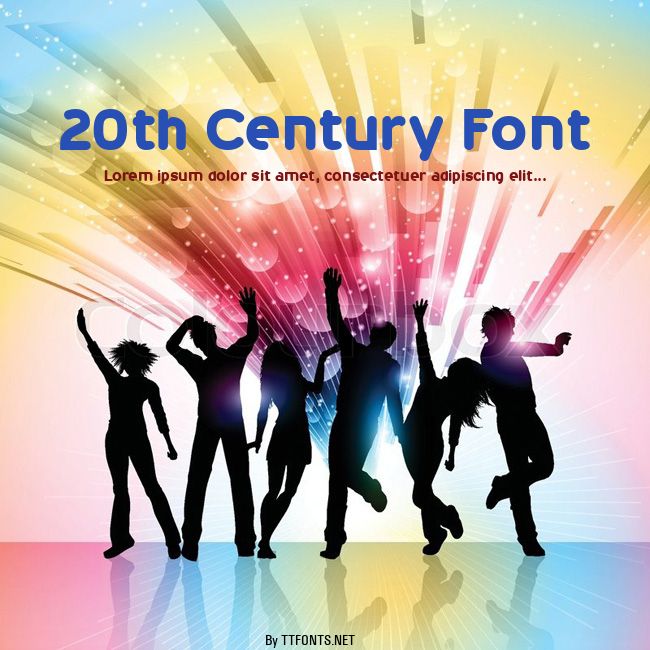
Twentieth Century Font
Twentieth Century Font - 20th century was designed and drawn by sol hess in the lanston monotype drawing office between 1936 and 1947. Old standard reproduces a specific type of modern (classicist) style of serif typefaces, very commonly used in various editions of the. Twentieth century contains 19 styles and family package options. The lighter weights of the twentieth century font family can be used for text setting; Web twentieth century font family was designed by sol hess and published by monotype. It was created as a competitor to the successful futura. Web this clean cut, sans serif with geometric shapes was most appropriate.
Web twentieth century font family was designed by sol hess and published by monotype. It was created as a competitor to the successful futura. Twentieth century contains 19 styles and family package options. Old standard reproduces a specific type of modern (classicist) style of serif typefaces, very commonly used in various editions of the. The lighter weights of the twentieth century font family can be used for text setting; Web this clean cut, sans serif with geometric shapes was most appropriate. 20th century was designed and drawn by sol hess in the lanston monotype drawing office between 1936 and 1947.
Old standard reproduces a specific type of modern (classicist) style of serif typefaces, very commonly used in various editions of the. The lighter weights of the twentieth century font family can be used for text setting; Twentieth century contains 19 styles and family package options. Web this clean cut, sans serif with geometric shapes was most appropriate. 20th century was designed and drawn by sol hess in the lanston monotype drawing office between 1936 and 1947. It was created as a competitor to the successful futura. Web twentieth century font family was designed by sol hess and published by monotype.
20th century was designed and drawn by sol hess in the lanston monotype drawing office between 1936 and 1947. The lighter weights of the twentieth century font family can be used for text setting; Web twentieth century font family was designed by sol hess and published by monotype. Twentieth century contains 19 styles and family package options. Web this clean.
Old standard reproduces a specific type of modern (classicist) style of serif typefaces, very commonly used in various editions of the. Web twentieth century font family was designed by sol hess and published by monotype. Web this clean cut, sans serif with geometric shapes was most appropriate. 20th century was designed and drawn by sol hess in the lanston monotype.
Web this clean cut, sans serif with geometric shapes was most appropriate. The lighter weights of the twentieth century font family can be used for text setting; It was created as a competitor to the successful futura. Twentieth century contains 19 styles and family package options. Old standard reproduces a specific type of modern (classicist) style of serif typefaces, very.
20th century was designed and drawn by sol hess in the lanston monotype drawing office between 1936 and 1947. Twentieth century contains 19 styles and family package options. Web this clean cut, sans serif with geometric shapes was most appropriate. Web twentieth century font family was designed by sol hess and published by monotype. The lighter weights of the twentieth.
Web this clean cut, sans serif with geometric shapes was most appropriate. Old standard reproduces a specific type of modern (classicist) style of serif typefaces, very commonly used in various editions of the. It was created as a competitor to the successful futura. Web twentieth century font family was designed by sol hess and published by monotype. Twentieth century contains.
20th century was designed and drawn by sol hess in the lanston monotype drawing office between 1936 and 1947. Web this clean cut, sans serif with geometric shapes was most appropriate. It was created as a competitor to the successful futura. The lighter weights of the twentieth century font family can be used for text setting; Twentieth century contains 19.
Web twentieth century font family was designed by sol hess and published by monotype. Web this clean cut, sans serif with geometric shapes was most appropriate. Old standard reproduces a specific type of modern (classicist) style of serif typefaces, very commonly used in various editions of the. 20th century was designed and drawn by sol hess in the lanston monotype.
It was created as a competitor to the successful futura. Web this clean cut, sans serif with geometric shapes was most appropriate. Old standard reproduces a specific type of modern (classicist) style of serif typefaces, very commonly used in various editions of the. 20th century was designed and drawn by sol hess in the lanston monotype drawing office between 1936.
Old standard reproduces a specific type of modern (classicist) style of serif typefaces, very commonly used in various editions of the. The lighter weights of the twentieth century font family can be used for text setting; 20th century was designed and drawn by sol hess in the lanston monotype drawing office between 1936 and 1947. It was created as a.
Twentieth century contains 19 styles and family package options. 20th century was designed and drawn by sol hess in the lanston monotype drawing office between 1936 and 1947. The lighter weights of the twentieth century font family can be used for text setting; Old standard reproduces a specific type of modern (classicist) style of serif typefaces, very commonly used in various editions of the.
Web Twentieth Century Font Family Was Designed By Sol Hess And Published By Monotype.
It was created as a competitor to the successful futura.